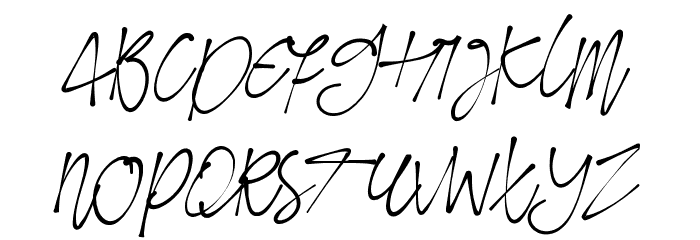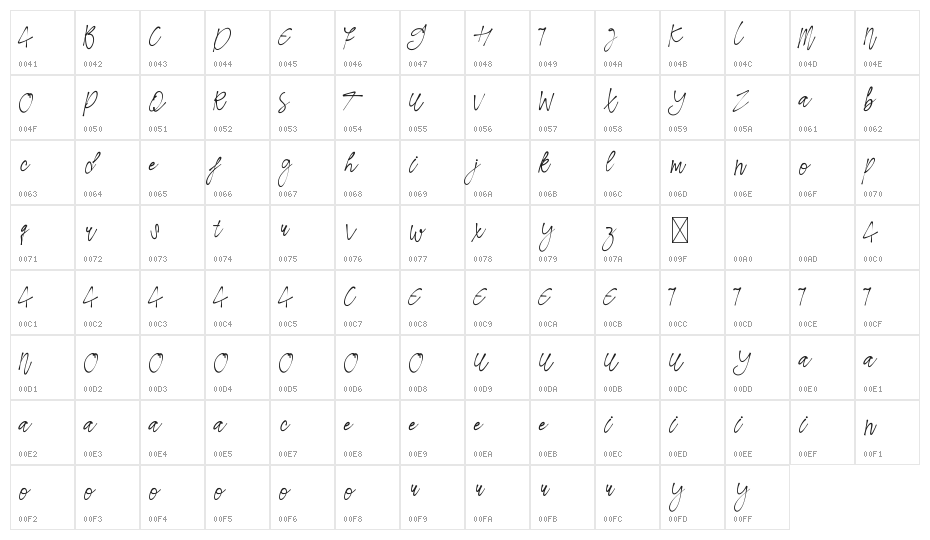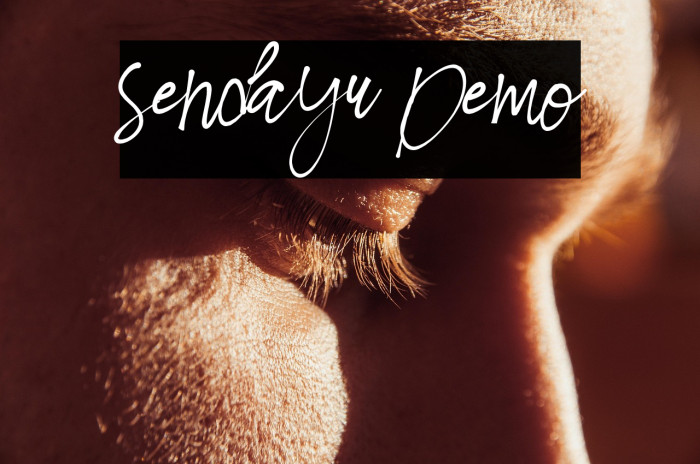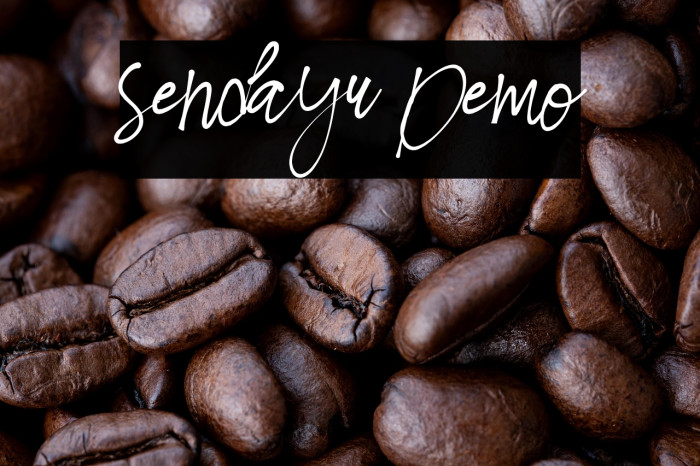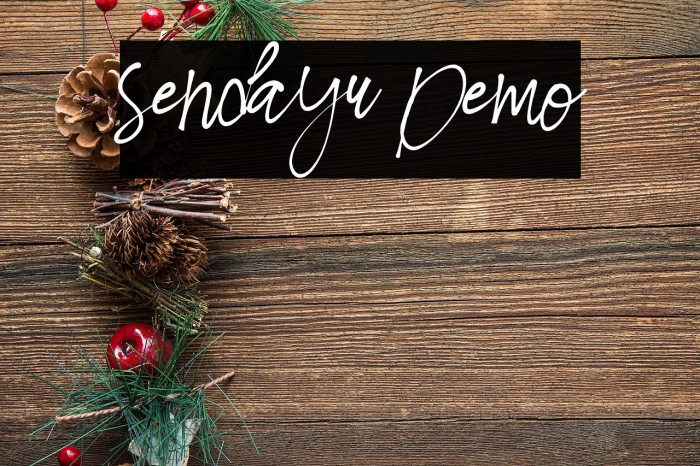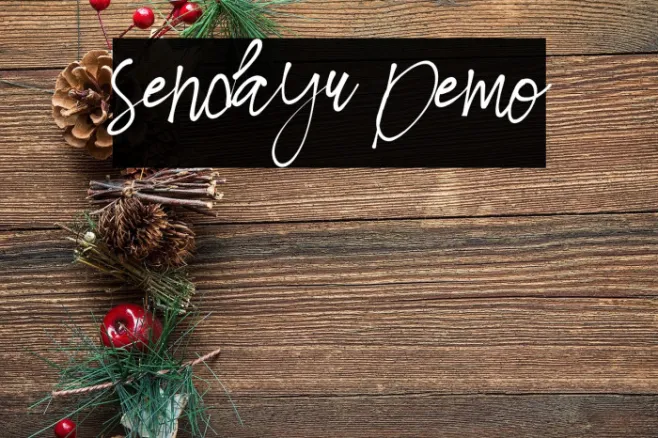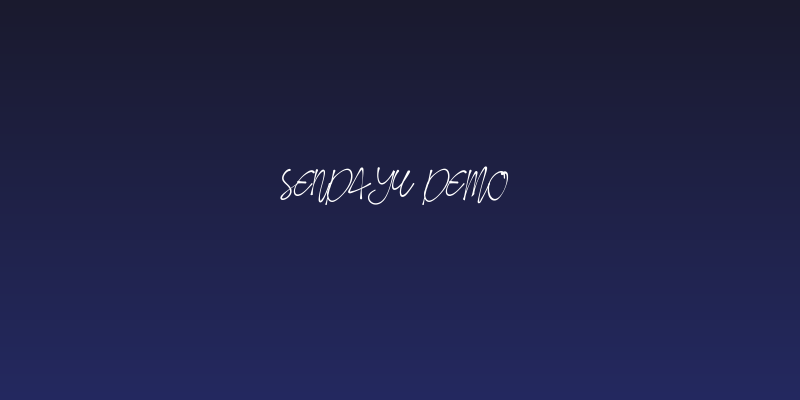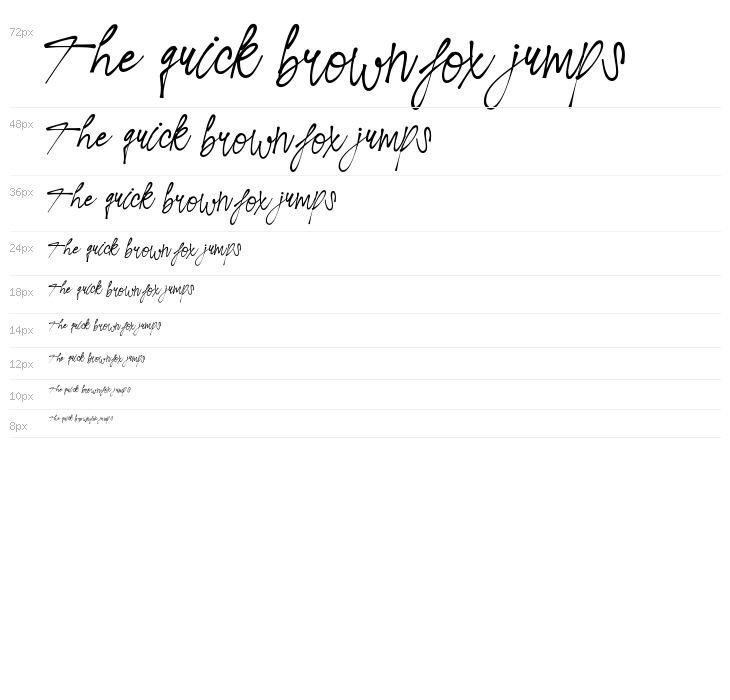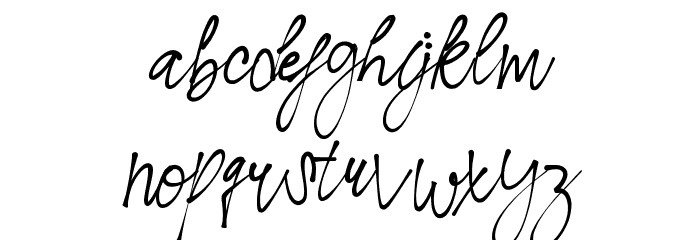
Sendayu Demo Font
Sendayu Demo Description
This font features a flowing, cursive style that mimics elegant handwriting. The letters are interconnected with smooth, sweeping strokes, giving it a dynamic and fluid appearance. The uppercase letters are bold and prominent, while the lowercase letters maintain a consistent flow, enhancing readability despite the script style. The font's design is characterized by its graceful curves and loops, which add a touch of sophistication and charm. It is well-suited for projects that require a personal, artistic touch, such as invitations, greeting cards, and branding materials. The overall aesthetic is both modern and timeless, making it versatile for various design needs.
| Proposed Projects | Ideal for invitations, greeting cards, branding, and artistic projects. |